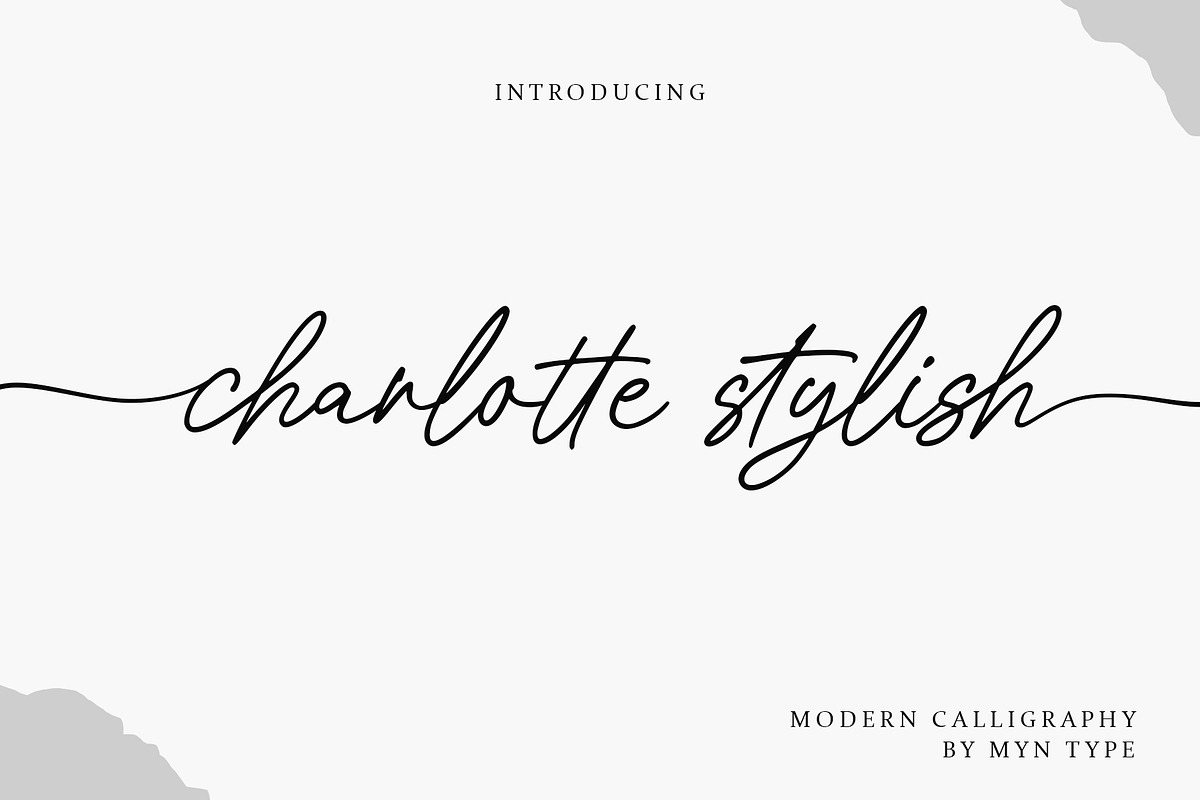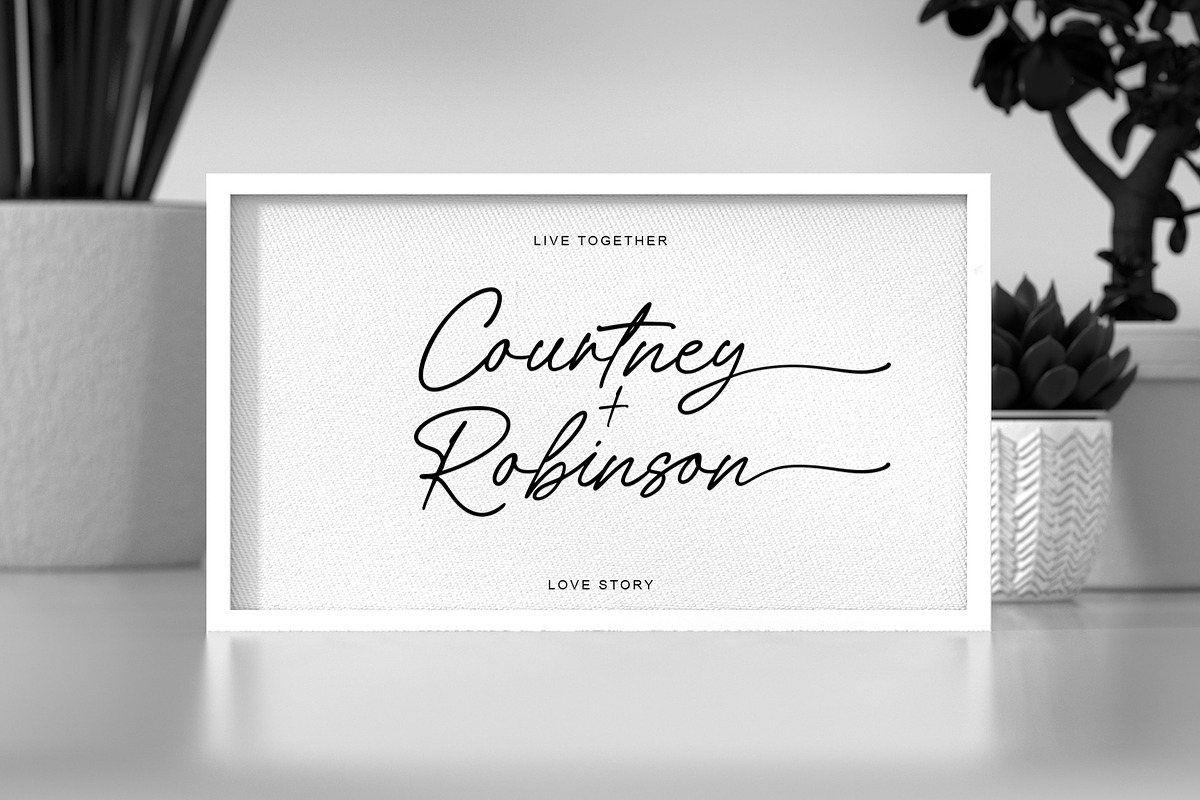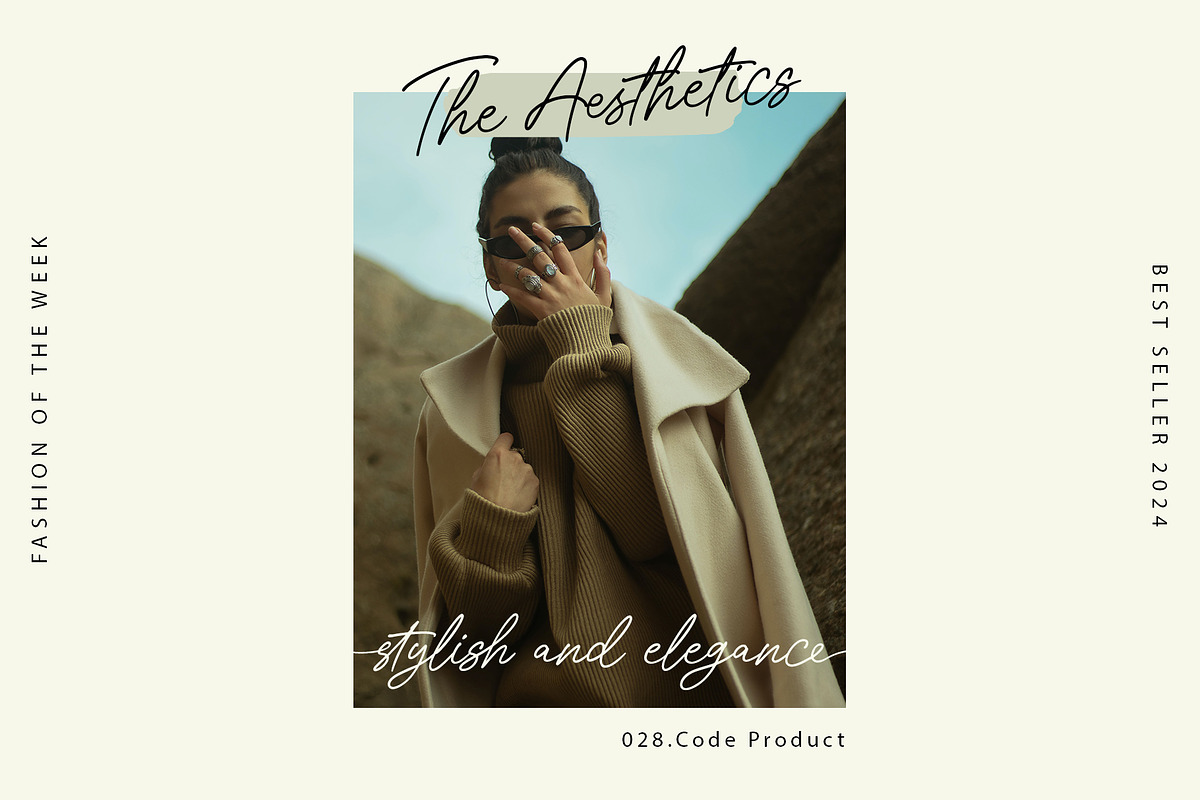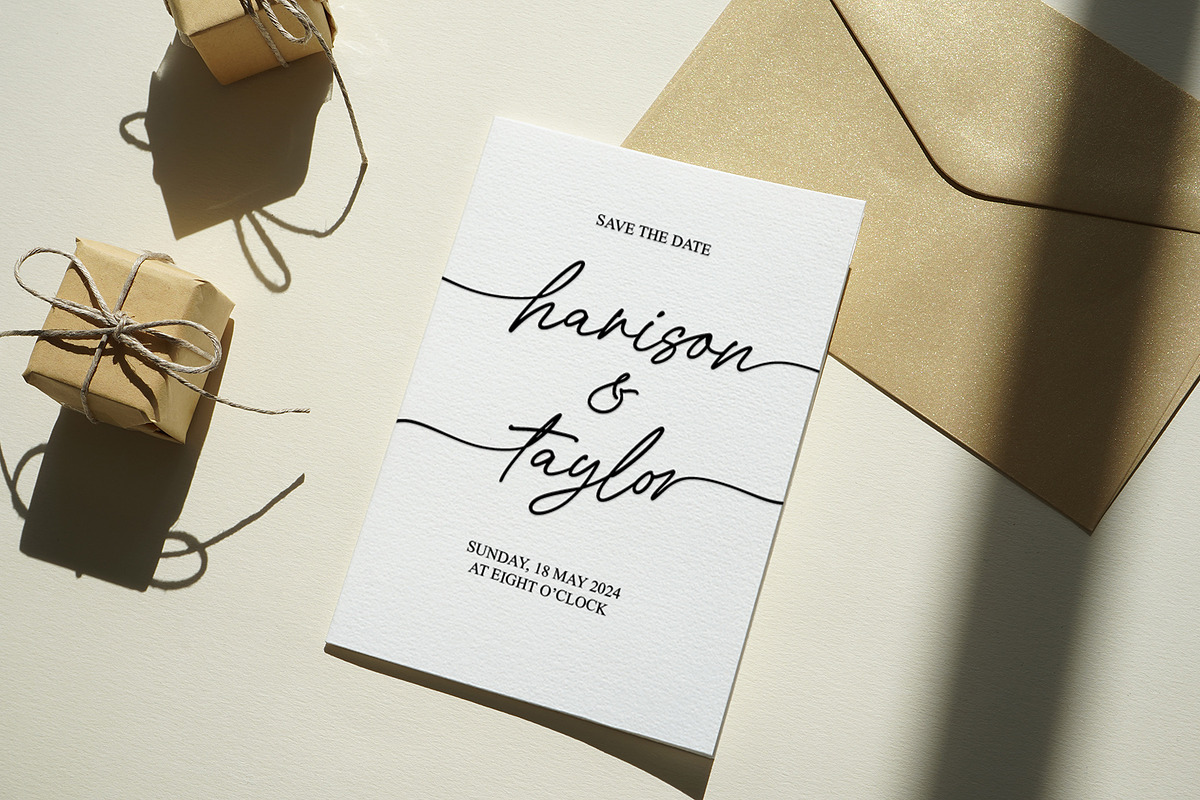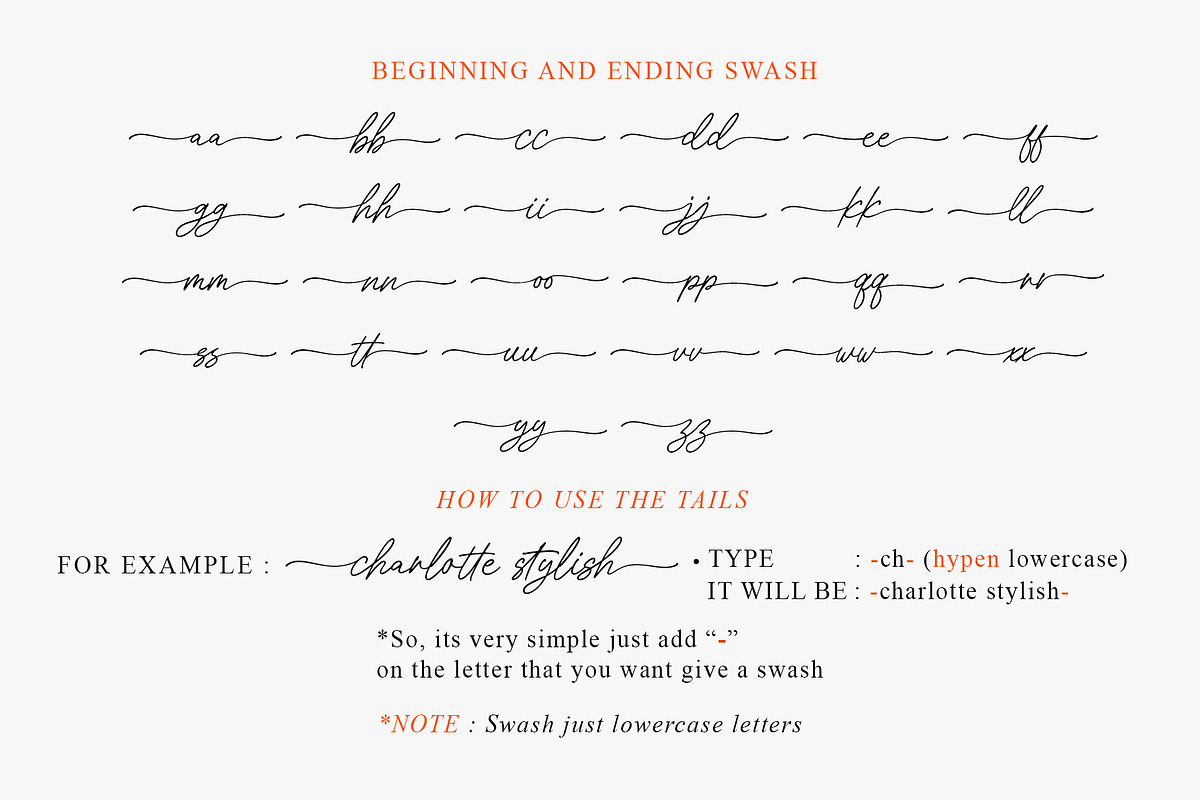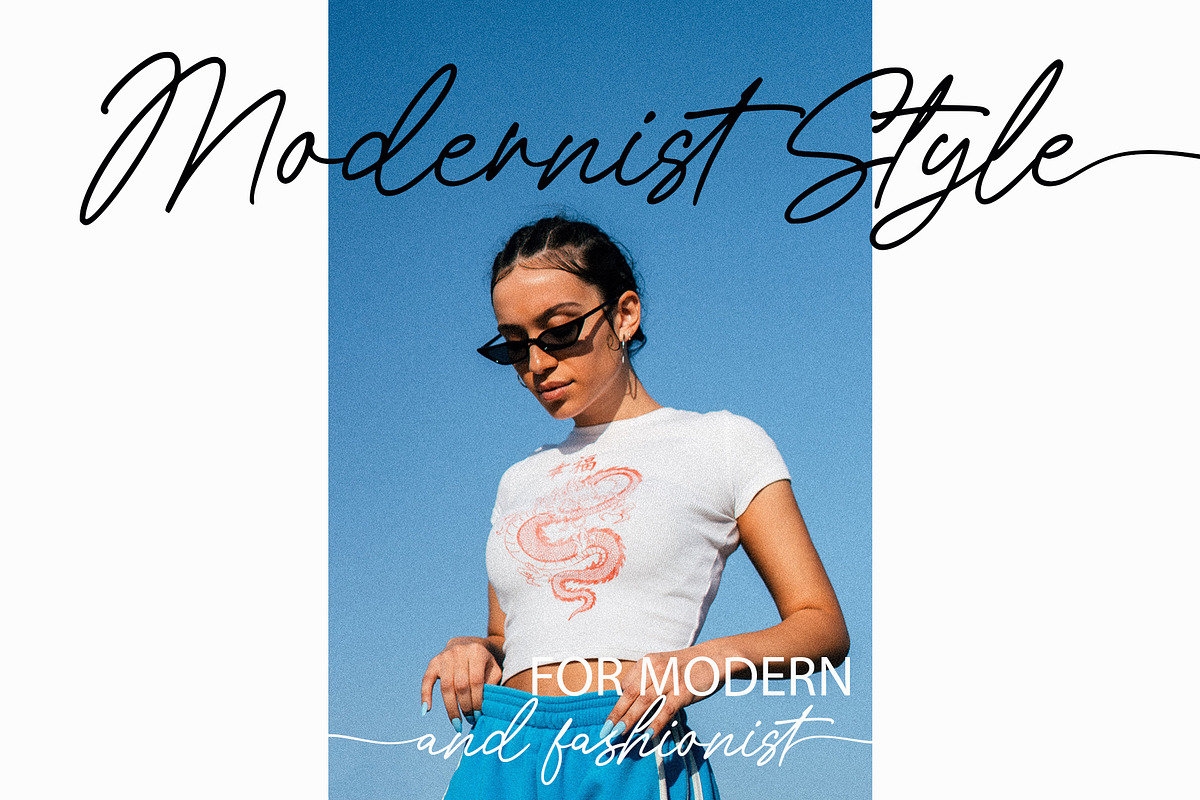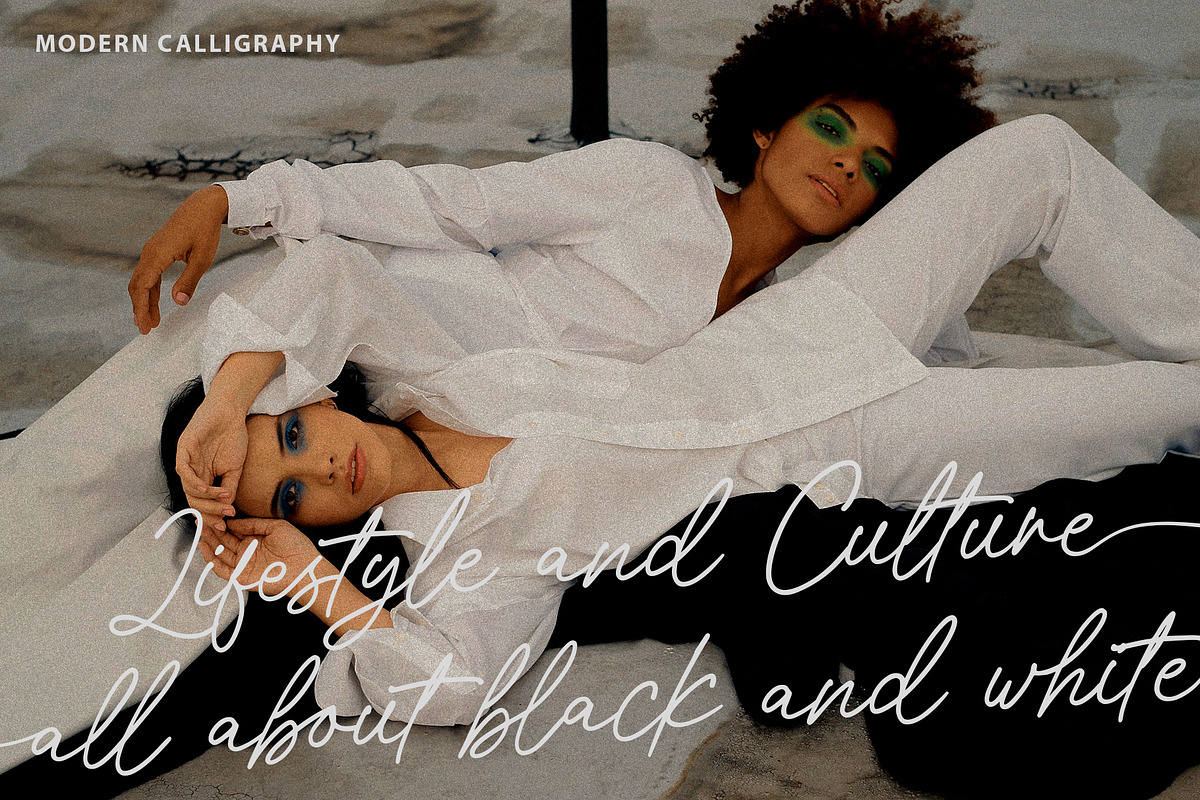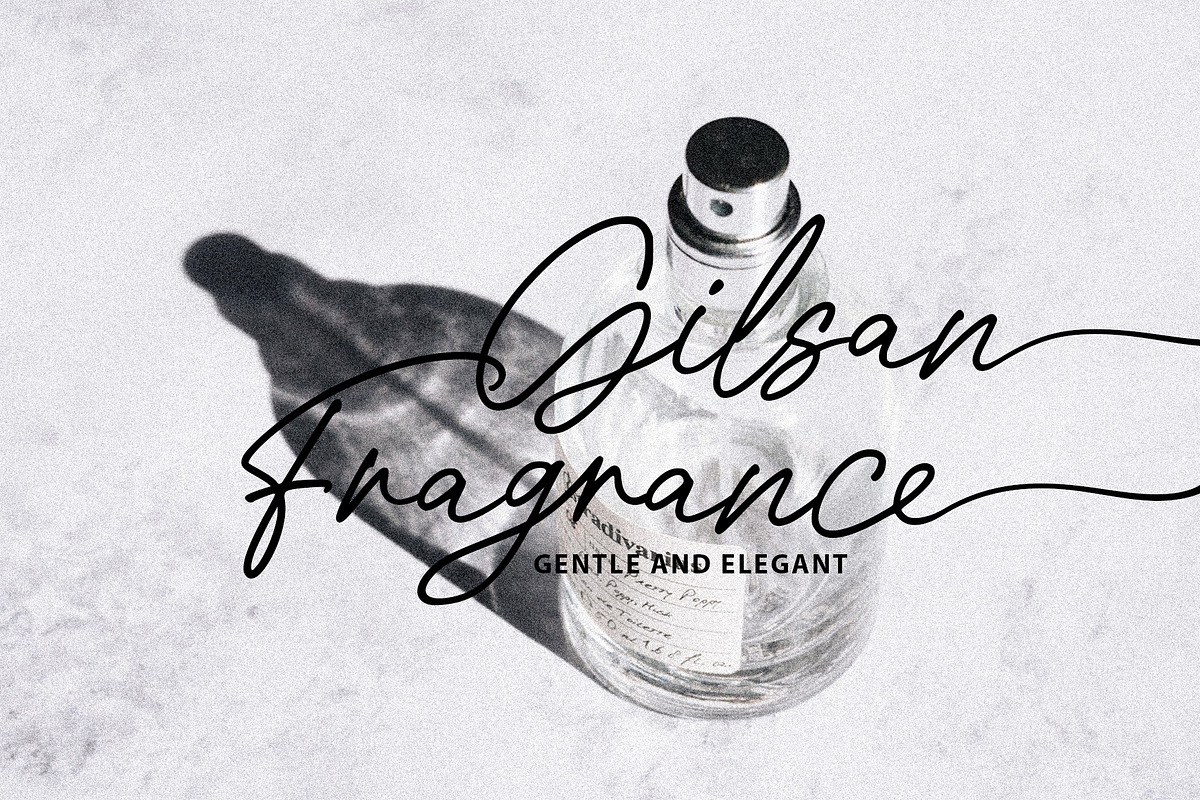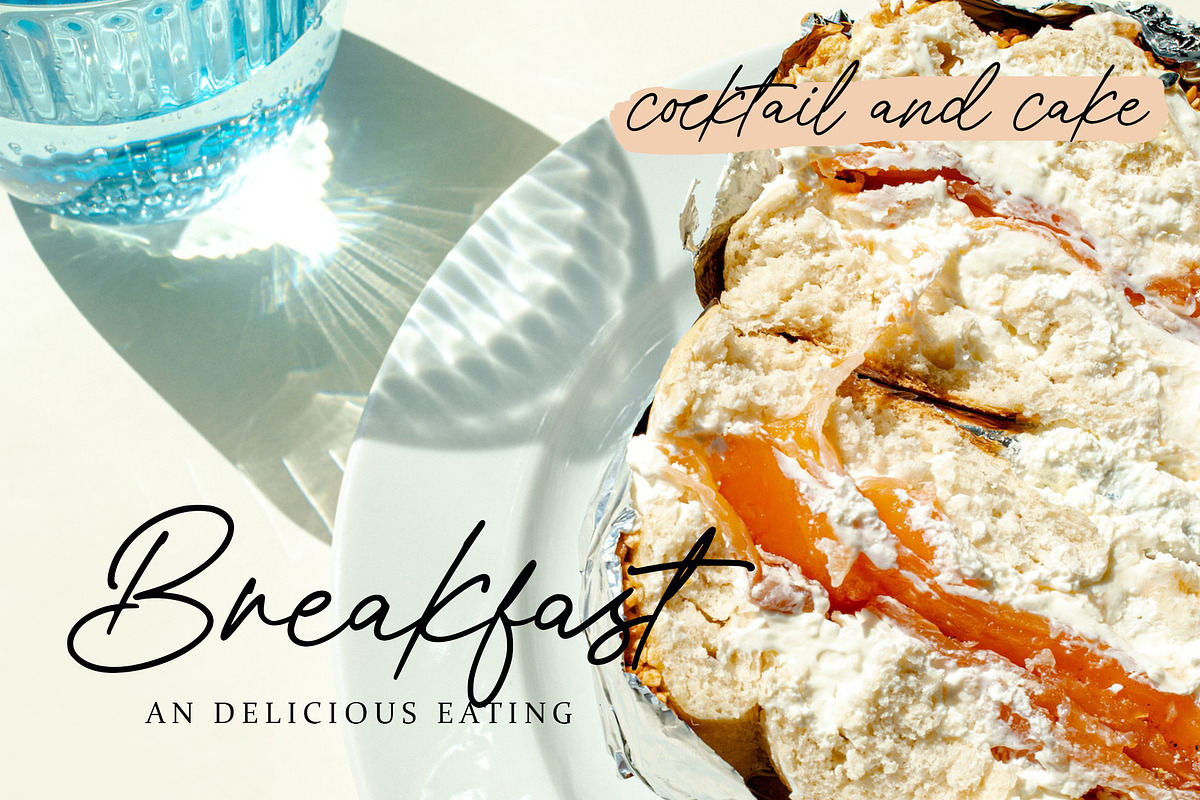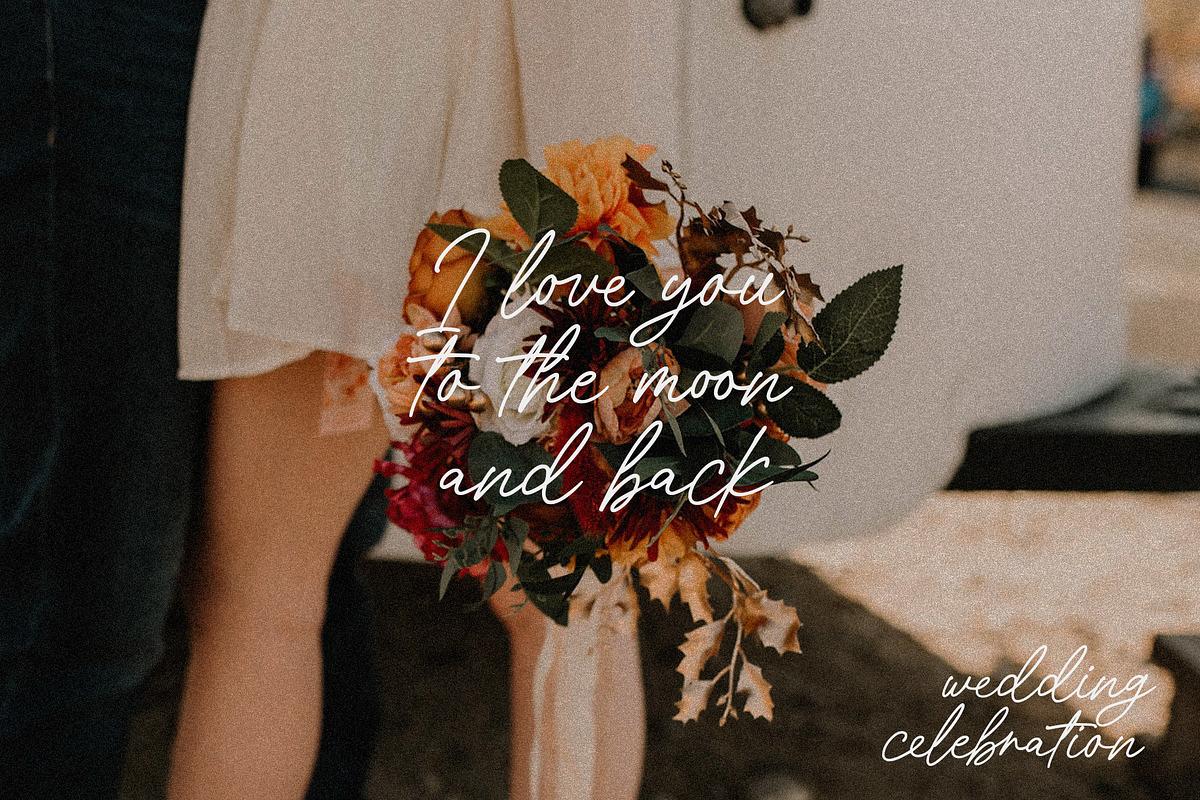
Charlotte Stylish Modern Calligraphy
Meet the Charlotte Stylish!!
An modern calligraphy. This style of calligraphy embraces a more free-flowing and experimental approach, breaking away from the rigid rules of classical calligraphy while maintaining a strong emphasis on creativity and individuality.
Make the Charlotte Stylish become a staple in graphic design, branding, and wedding stationery. Its stylish and personalized aesthetic, is suitable for creating logos, invitations, social media graphics, and other design elements that require a contemporary and visually engaging touch.
HOW TO USE THE SWASH : its very simple just add “-” on the letter that you want give a swash.
For example : -charlotte stylish-